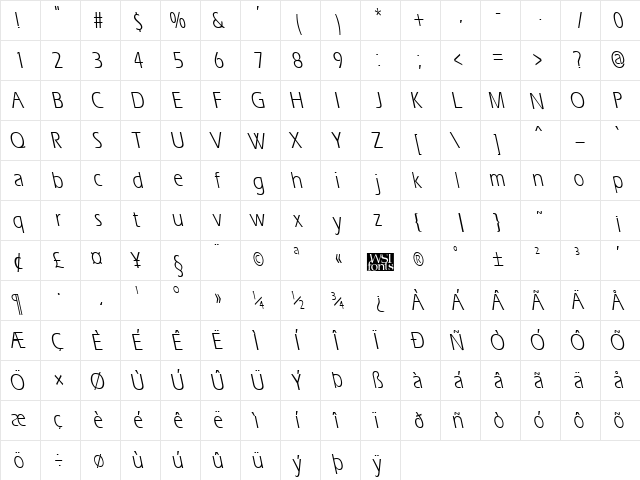
ErgoeCondensedBS Regular
Design Context for ErgoeCondensedBS Typeface
ErgoeCondensedBS takes a measured approach to typography — its balanced proportions and neutral character make it a reliable workhorse for both digital and print work. The condensed width makes it efficient for tight spaces without sacrificing legibility.